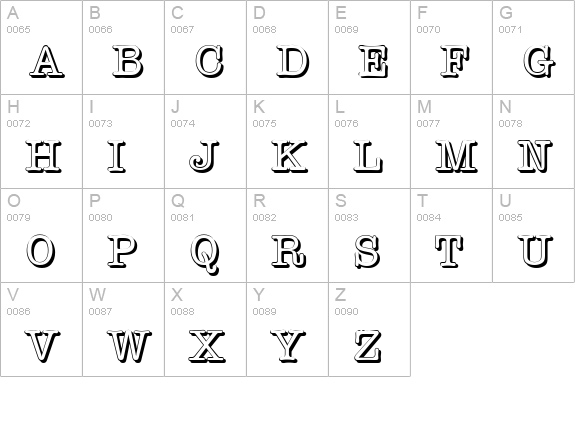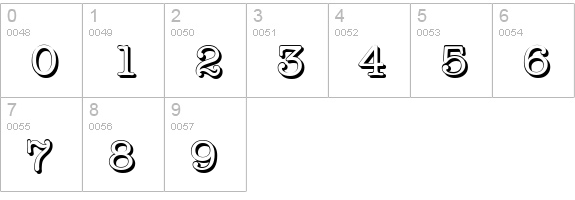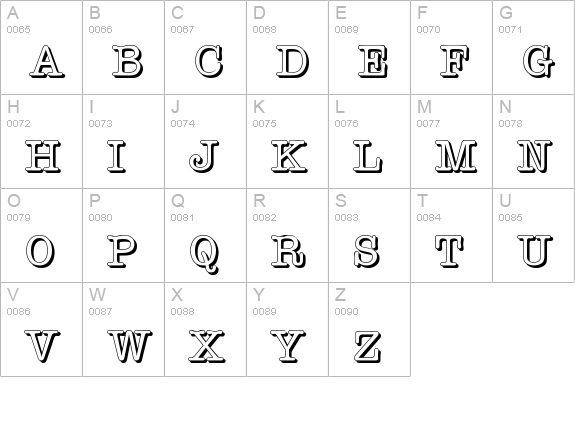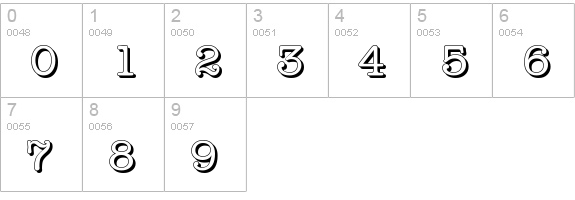
TypewriterShadow-Regular is the standard, neutral variant in the TypewriterShadow typeface family \xE2\x80\x94 well suited to general body text, paragraphs, and standard typographic work.
TypewriterShadow-Regular font is a charming and nostalgic typeface that brings back the classic look of vintage typewriters. Its distinctive shadow effect adds depth and character to any design project. This font exudes a sense of old-world charm and authenticity, making it perfect for creating retro-inspired designs or adding a touch of vintage flair to your work. Best of all, TypewriterShadow-Regular font is completely free to download at FontsMarket.com. Whether you're working on a personal project or a professional design, this versatile font is sure to add a unique and timeless touch to your creations. Get your hands on this free font today and start adding a touch of vintage charm to your designs!